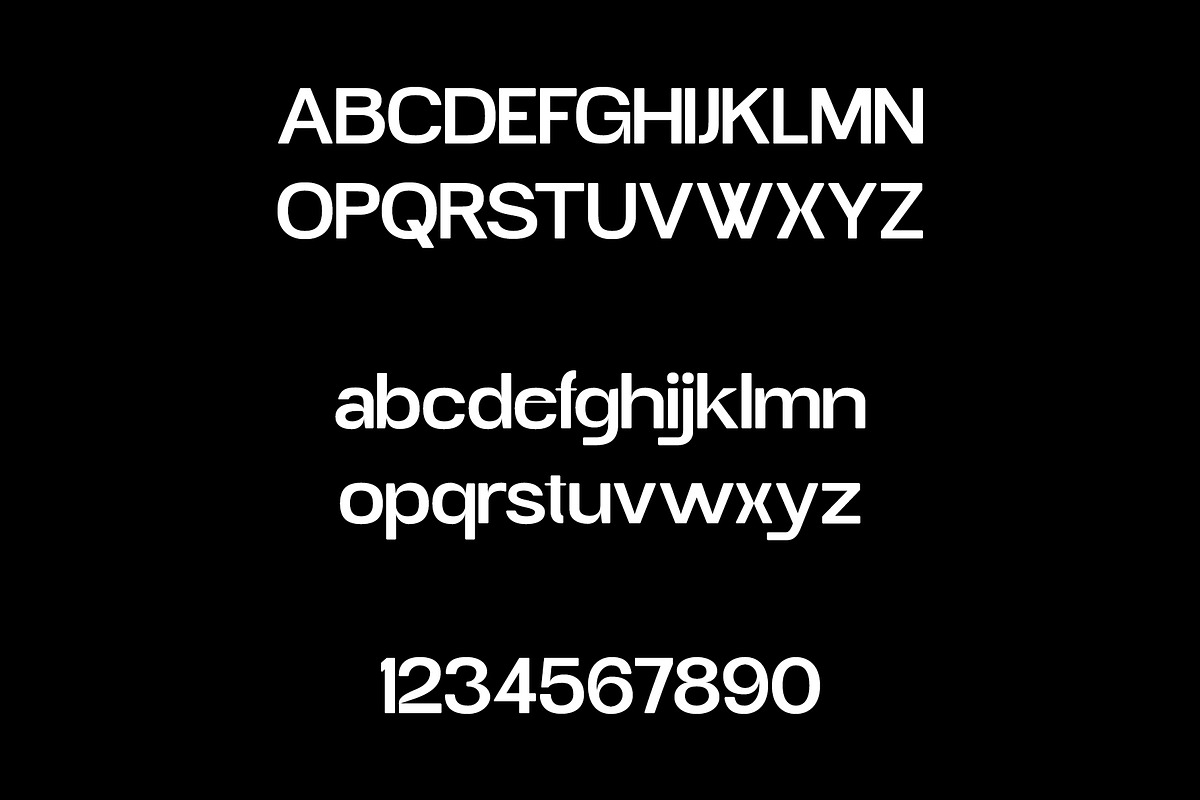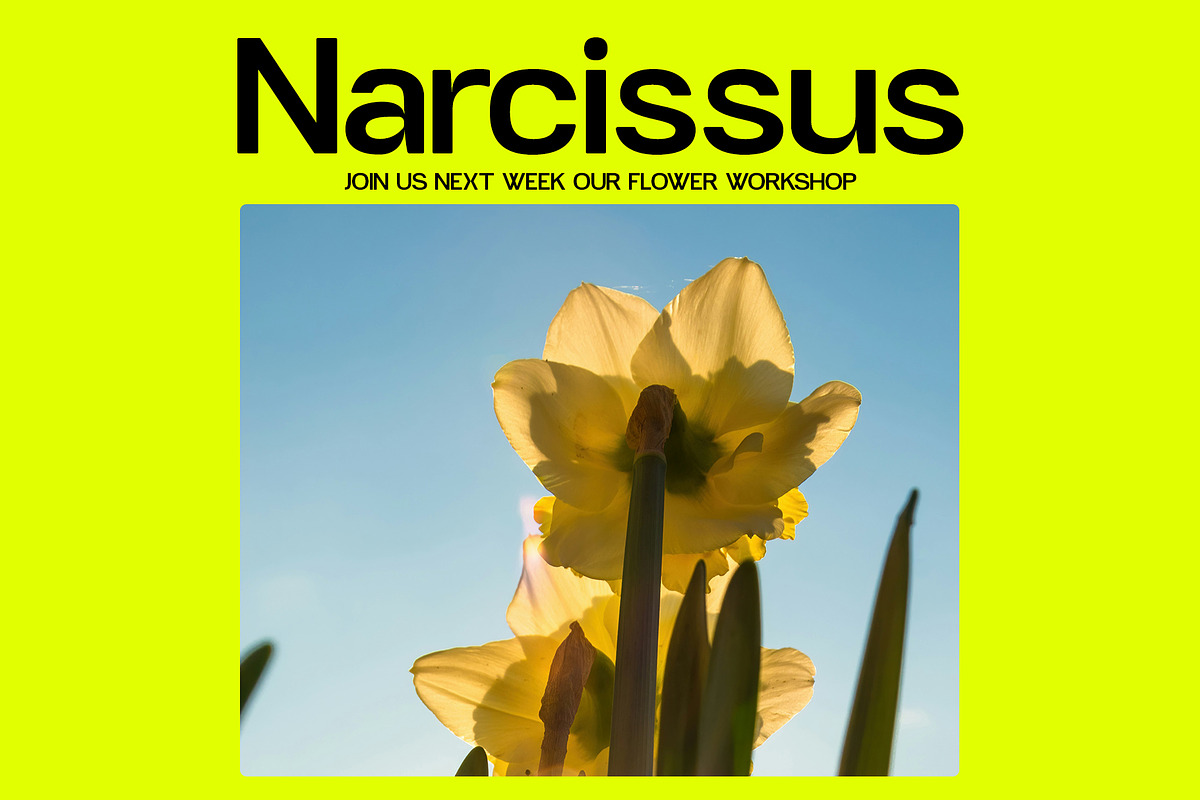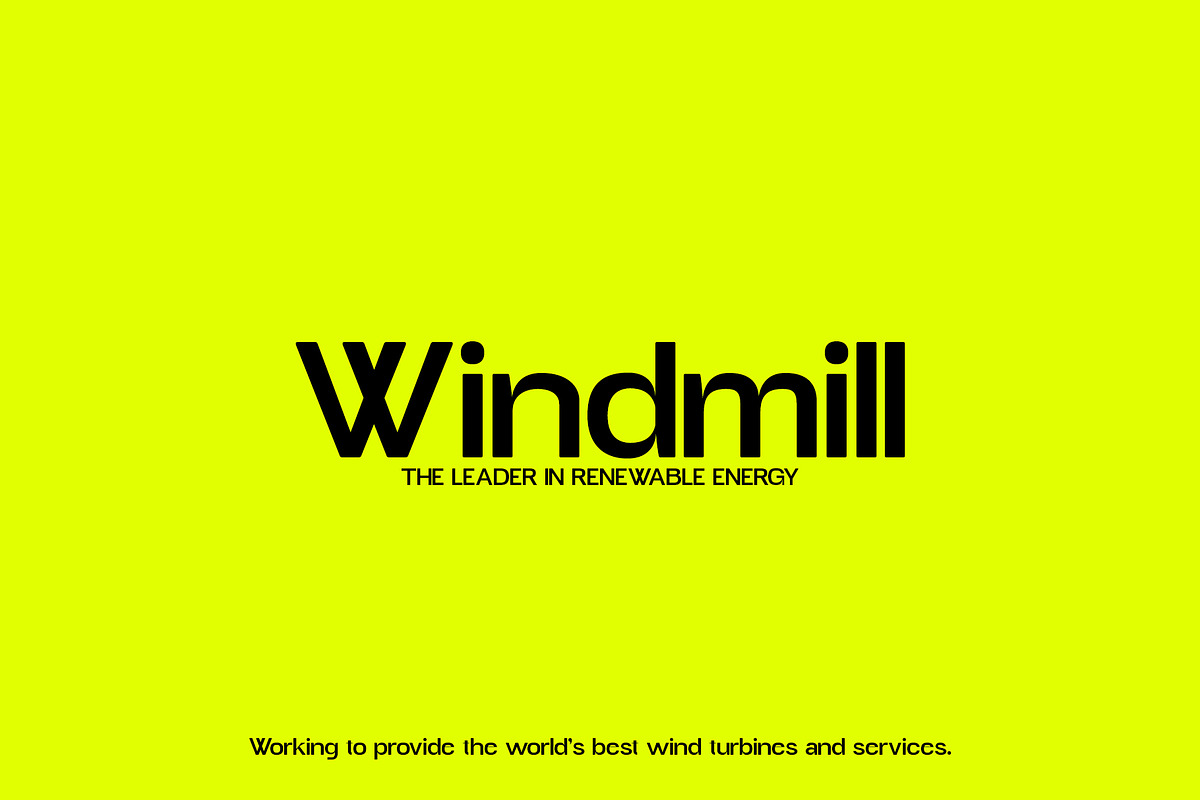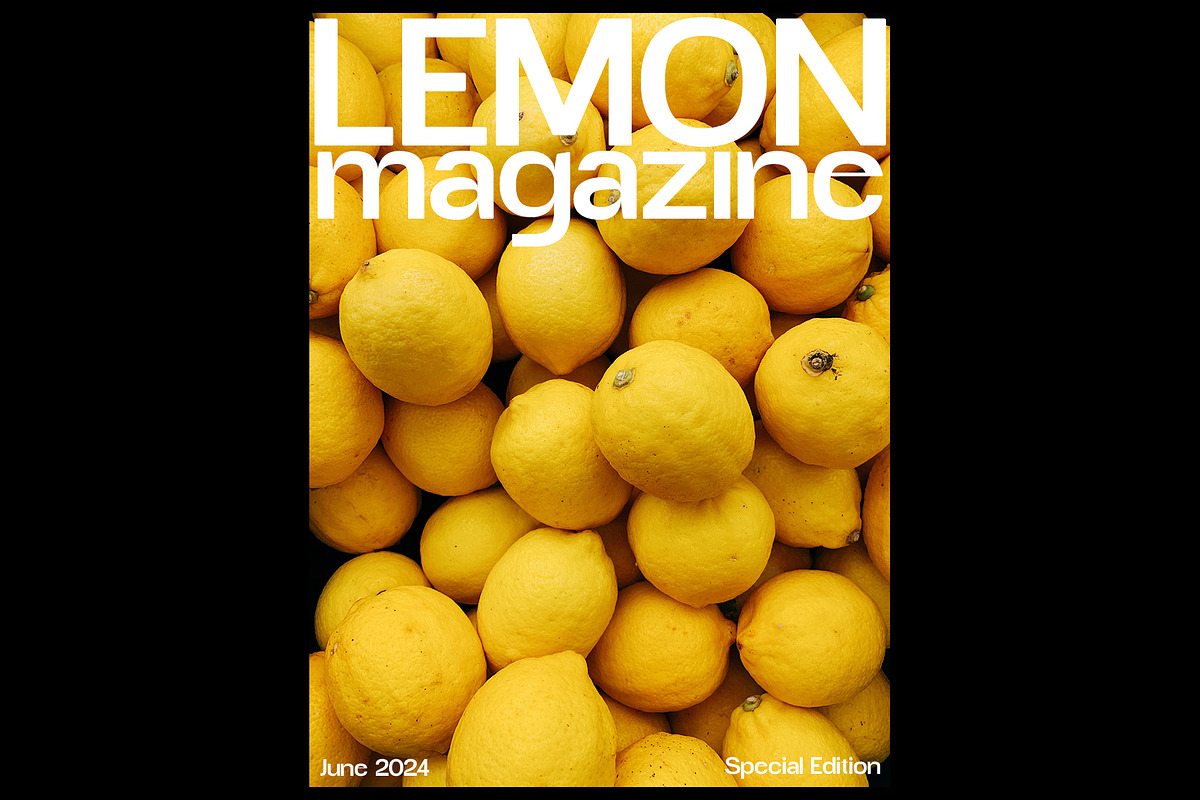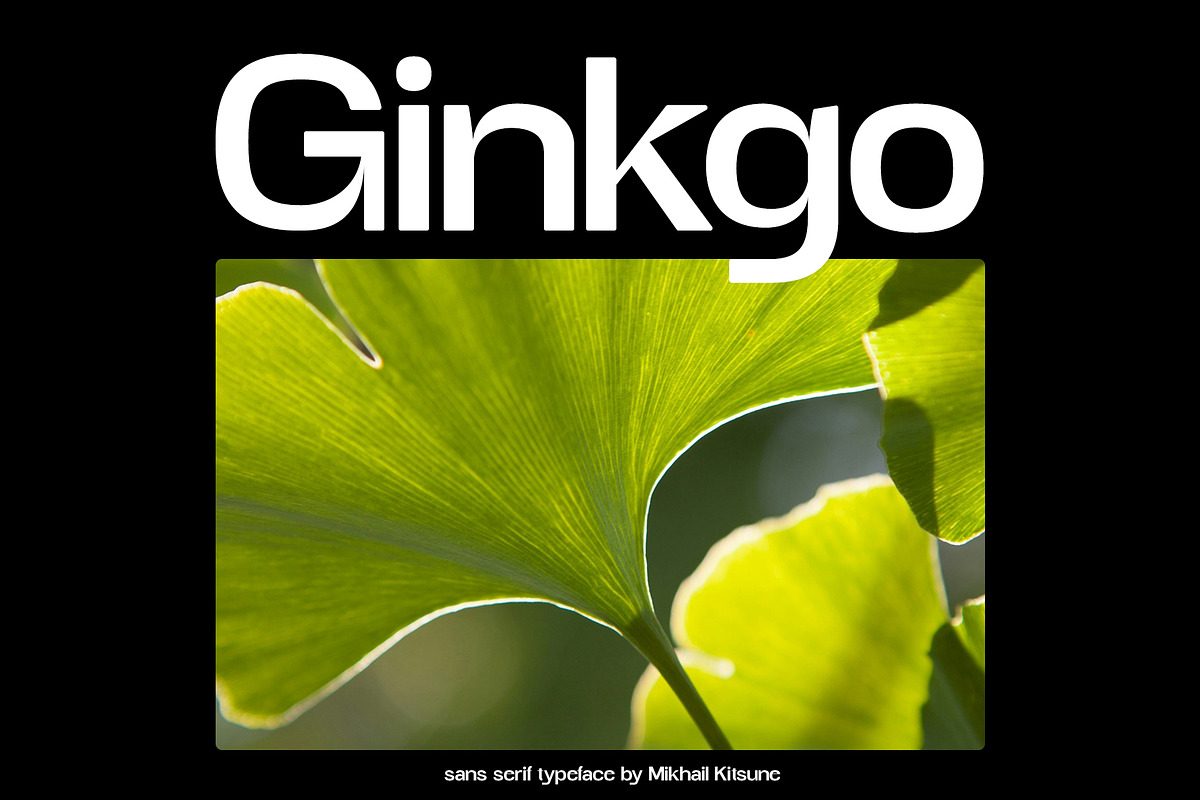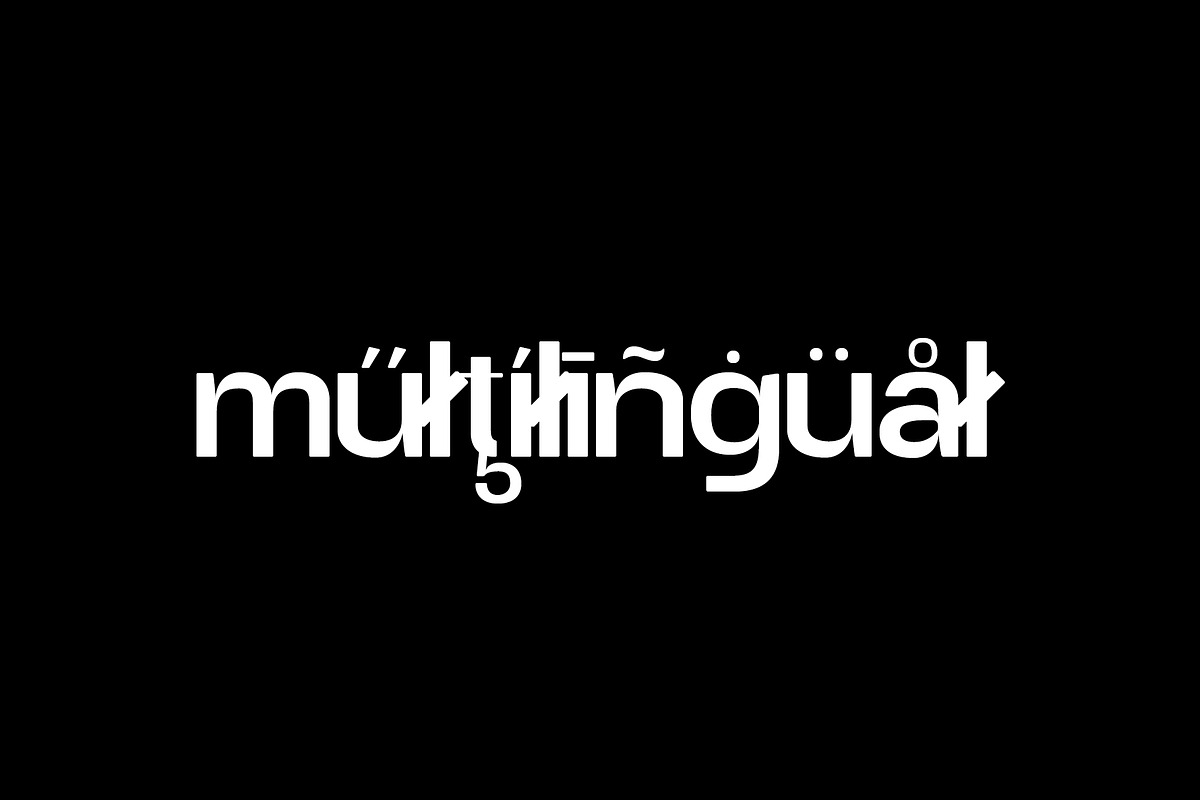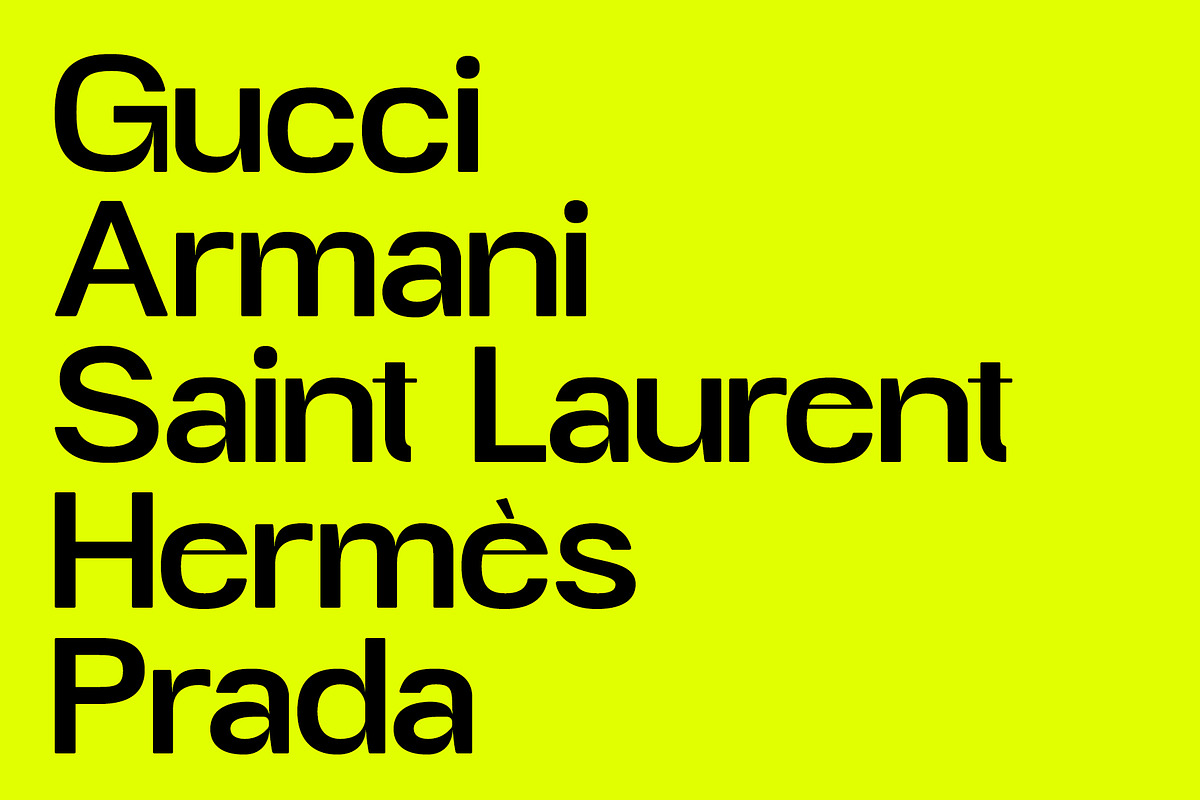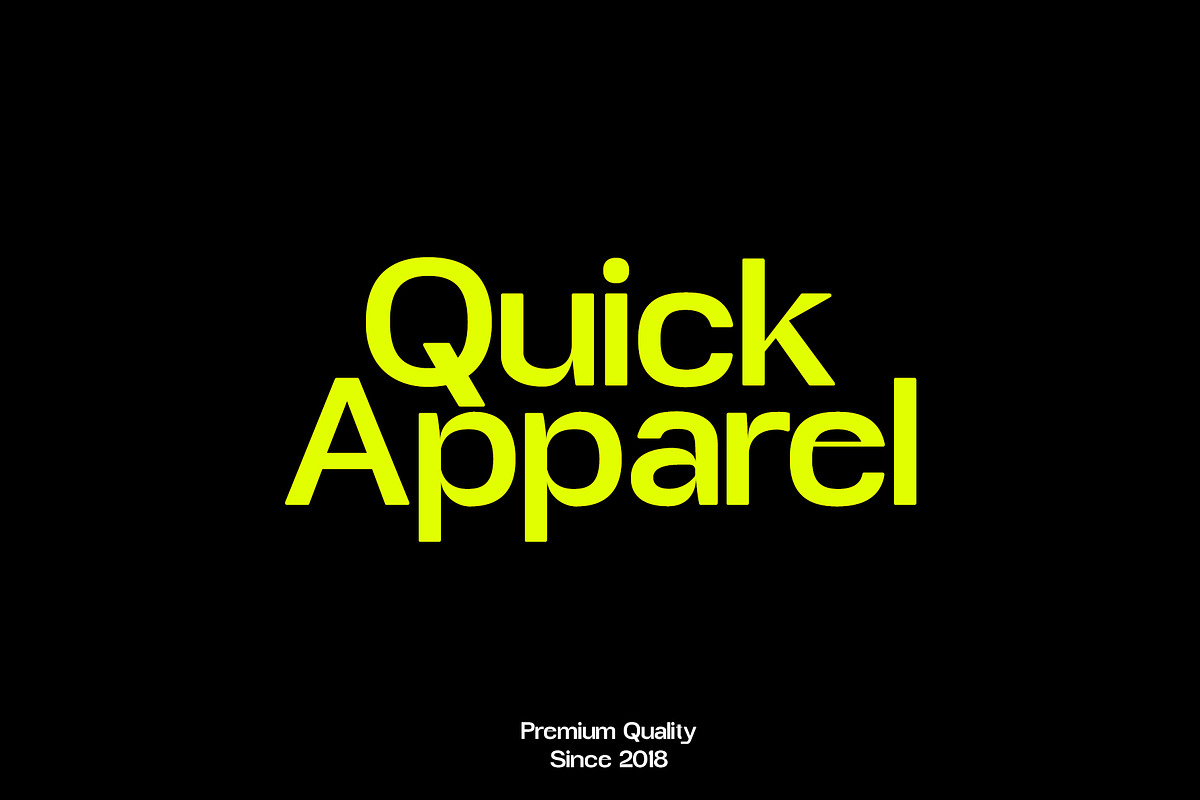
Ginkgo - Unique Sans Serif
Ginkgo is a unique sans serif font that features clean lines and a modern aesthetic. Its distinctive design makes it stand out from other fonts, making it a popular choice for branding and design projects. With its versatility and readability, Ginkgo is suitable for various applications, from digital to print media. Its sleek and contemporary look makes it a great option for creating a professional and polished appearance in any design project.
Ginkgo includes:
- Letters
- Symbols & Punctuation
- More than 300 glyphs